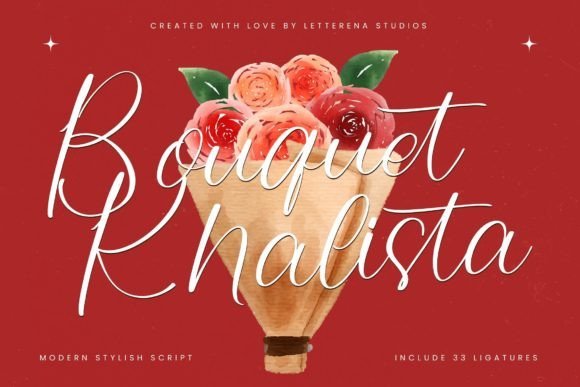
Unleash Your Creativity with the Boquet Khalista Font
Have you ever been stuck on a design project, searching for the perfect font to bring your vision to life? Maybe you’re planning a wedding, a birthday party, or a special anniversary celebration, and you want your invitations to make a lasting impression. Whatever the occasion, I’m sure you’ll agree that the right font can make all the difference.
Enter the Boquet Khalista Font, a stunning script font that exudes elegance and sophistication. With its flowing, cursive letters, this font is perfect for adding a touch of class to your designs. Whether you’re a professional designer or a DIY enthusiast, the Boquet Khalista Font is a valuable asset to have in your creative toolkit.
Key Features of Boquet Khalista Font
- Font Family: Boquet Khalista Font is a beautiful and elegant script font, perfect for various designs and projects.
- Unique Characteristics: Boquet Khalista Font features a unique combination of elegance and sophistication, with intricate details and flourishes that set it apart from other script fonts.
- Font Style: The font comes in a single style, but its versatility makes it suitable for various design projects, from wedding invitations to branding materials.
Boquet Khalista Font Review
Overall, I’m quite impressed with the Boquet Khalista Font. It’s a unique and elegant script font that can elevate any design project.
- Beautiful Brush Script: Boquet Khalista has a lovely, flowing script that adds a touch of sophistication to any text.
- Highly Versatile: This font can be used for a wide range of projects, from wedding invitations to product labels.
- Smooth Texture: The font’s texture is smooth and even, making it perfect for large blocks of text.
Limitsations ⚠️
- Limited Character Set: Boquet Khalista has a relatively small character set, which can limit its use in certain projects.
- No Italic or Bold Options: While the font looks great in its standard weight, it would be nice to have italic or bold options for added emphasis.
- Not Suitable for Small Text: Due to its script nature, Boquet Khalista may not be the best choice for small text, as it can be difficult to read.
Overall, I think Boquet Khalista is a great addition to any designer’s font library. While it has some limitations, its unique look and high versatility make it a valuable asset for any project.
Practical Application Guide for Boquet Khalista Font
Tips for Getting the Most Out of Boquet Khalista Font
Use Boquet Khalista Font for titles, headings, and other display text to add a touch of elegance and sophistication.
Pair Boquet Khalista Font with a clean and simple font for body text to create a visually appealing contrast.
Experiment with different font sizes and styles to create a unique and eye-catching design.
Use Boquet Khalista Font for:
Business cards and letterheads
Event marketing materials and signage